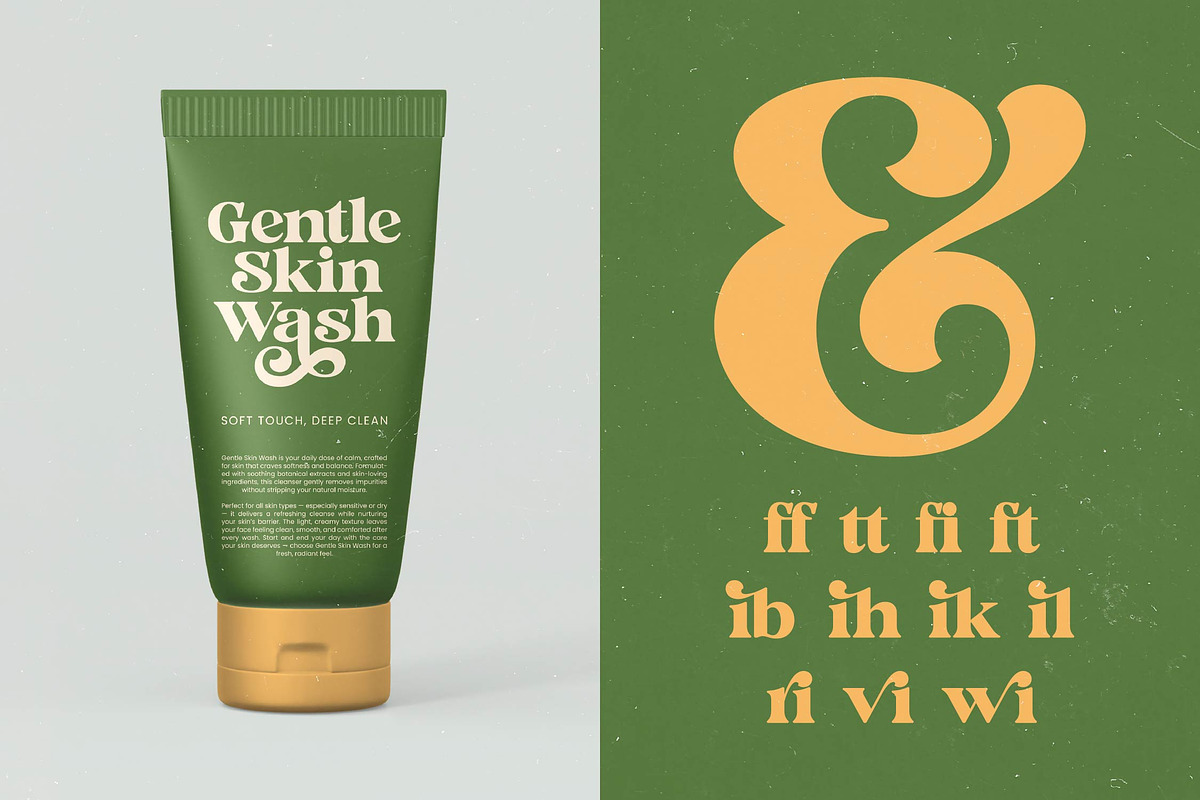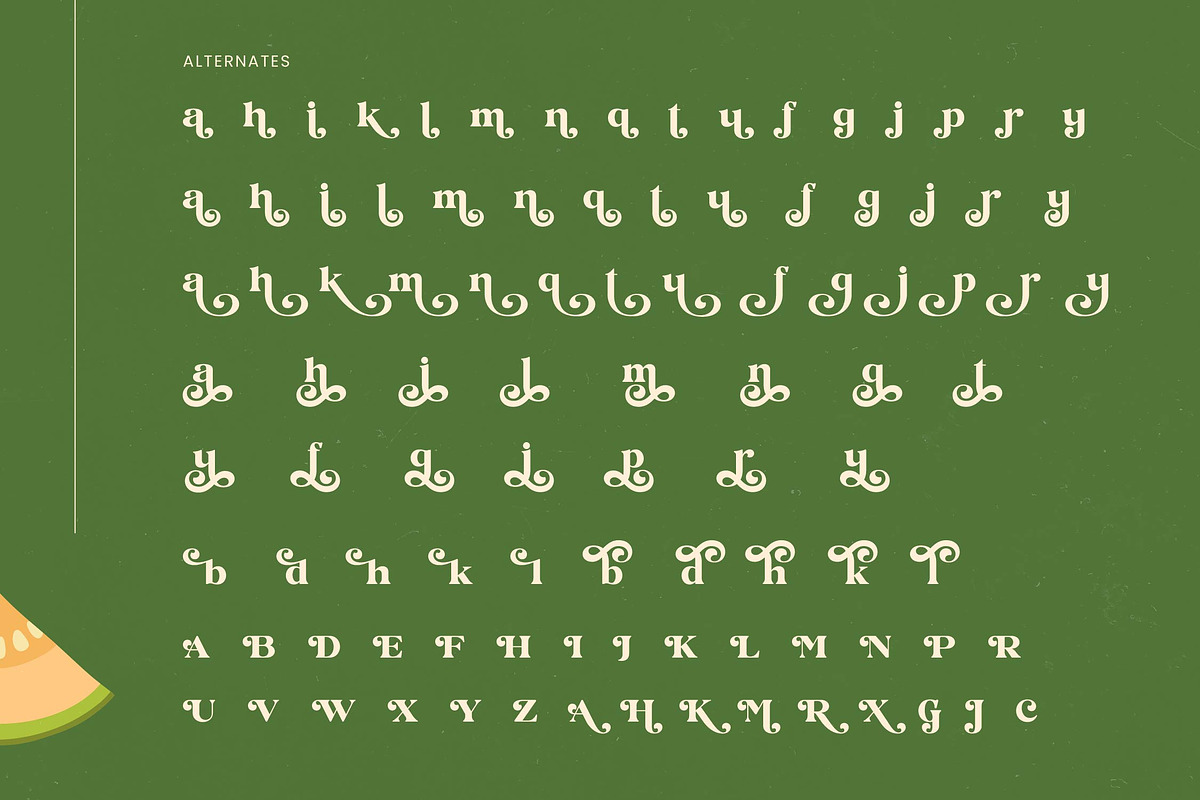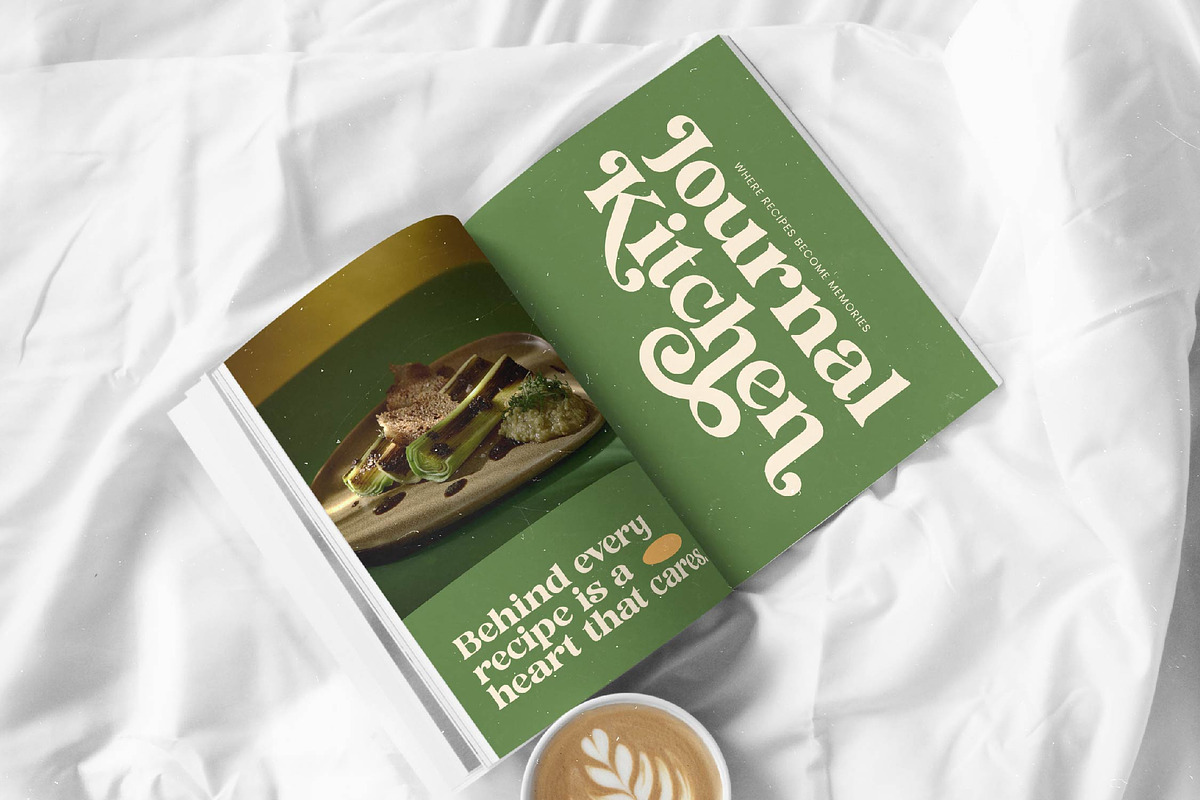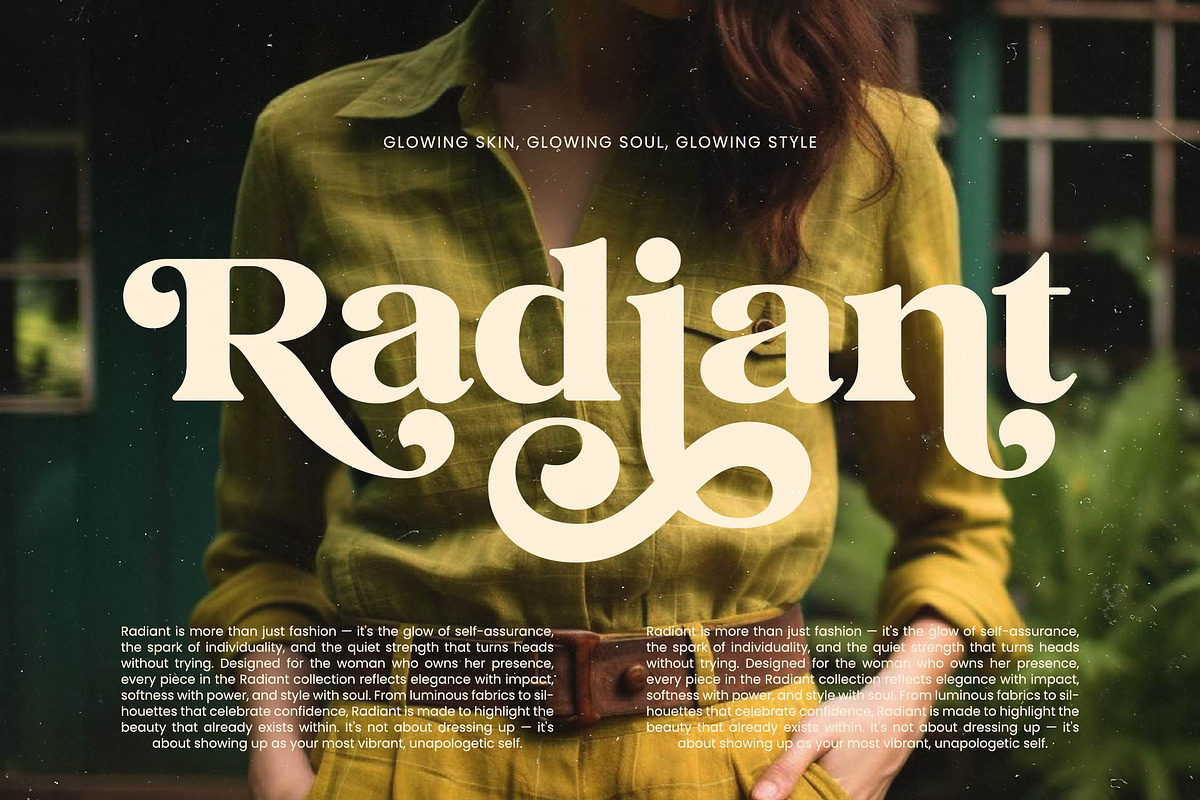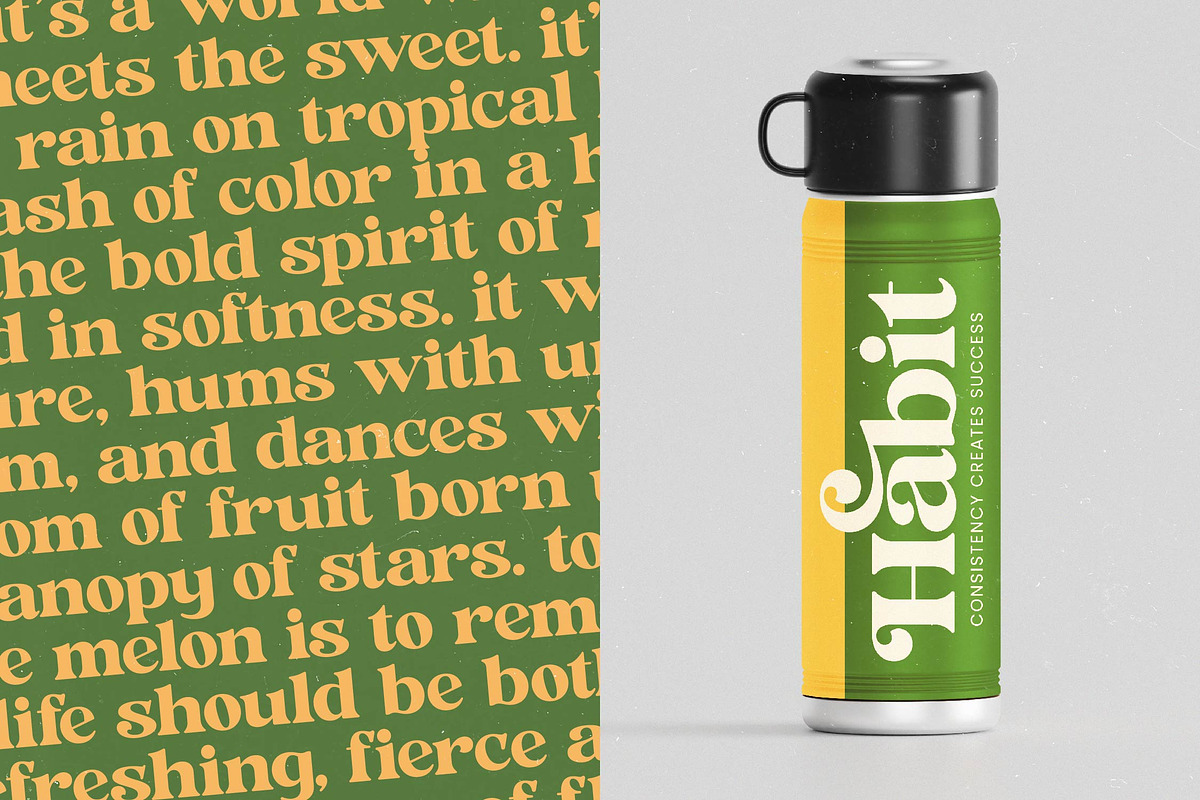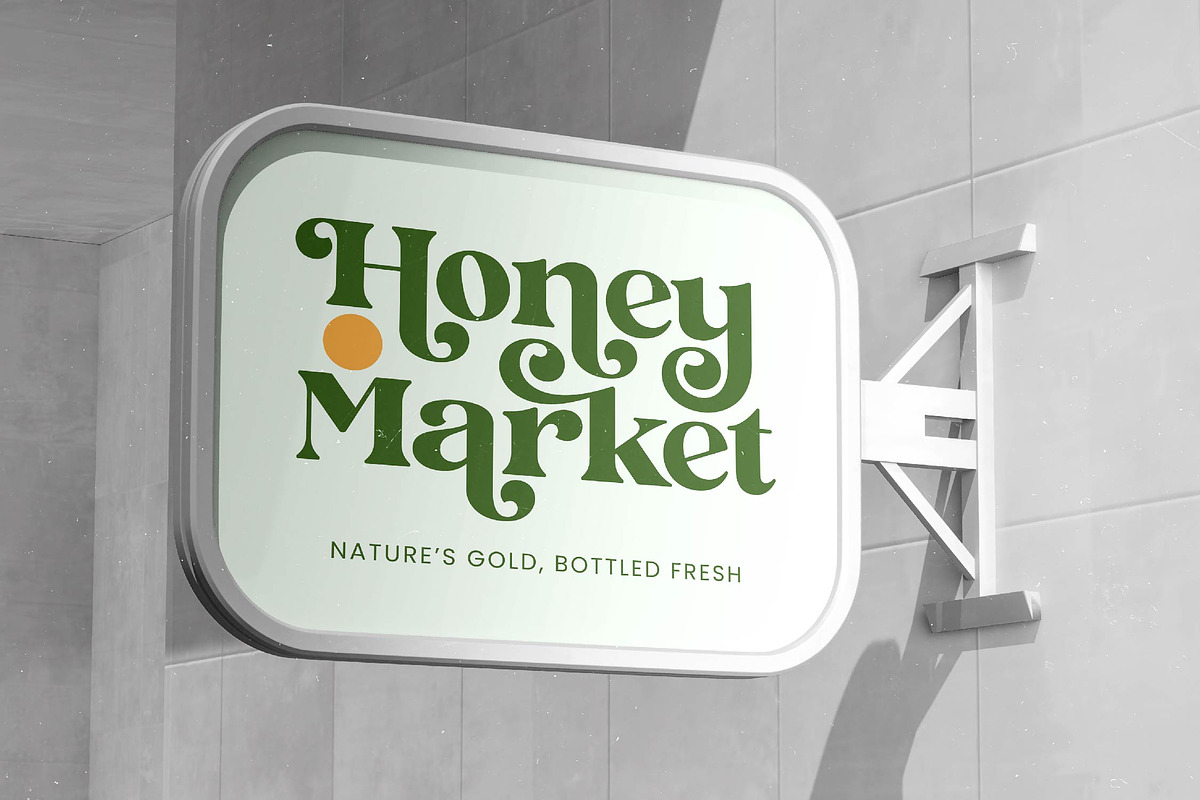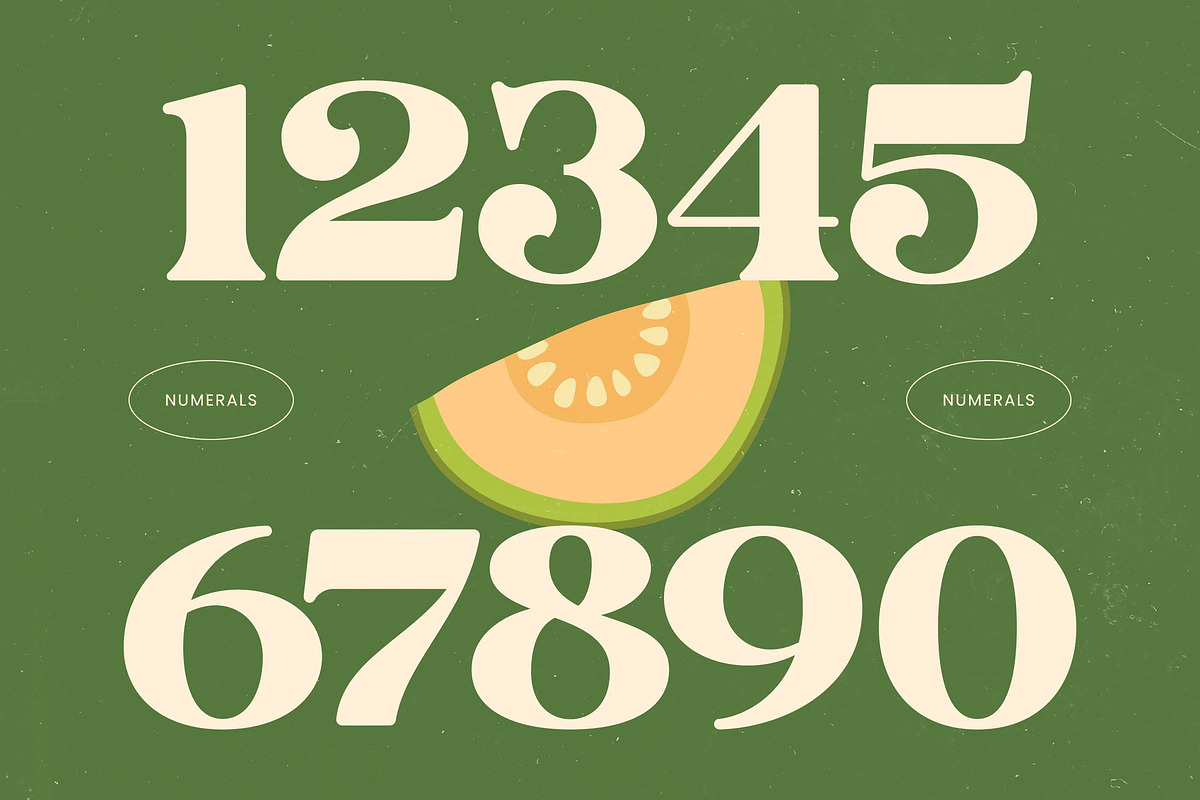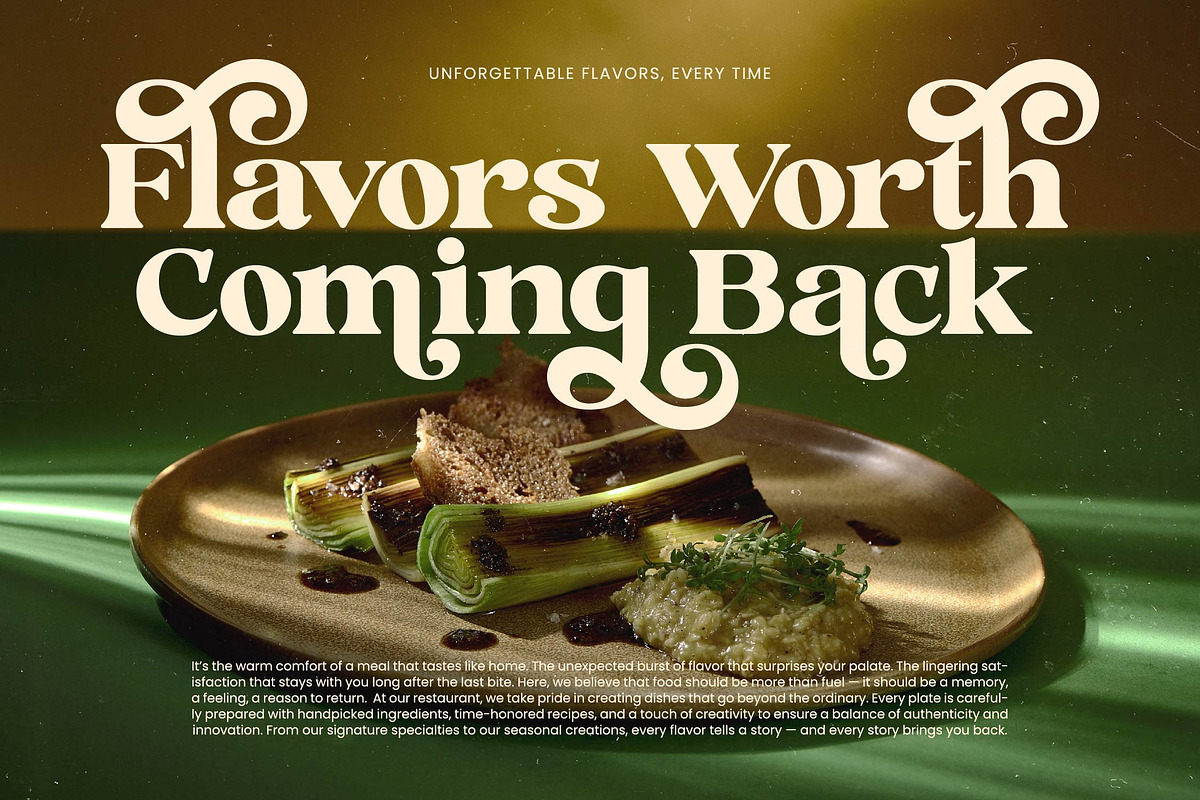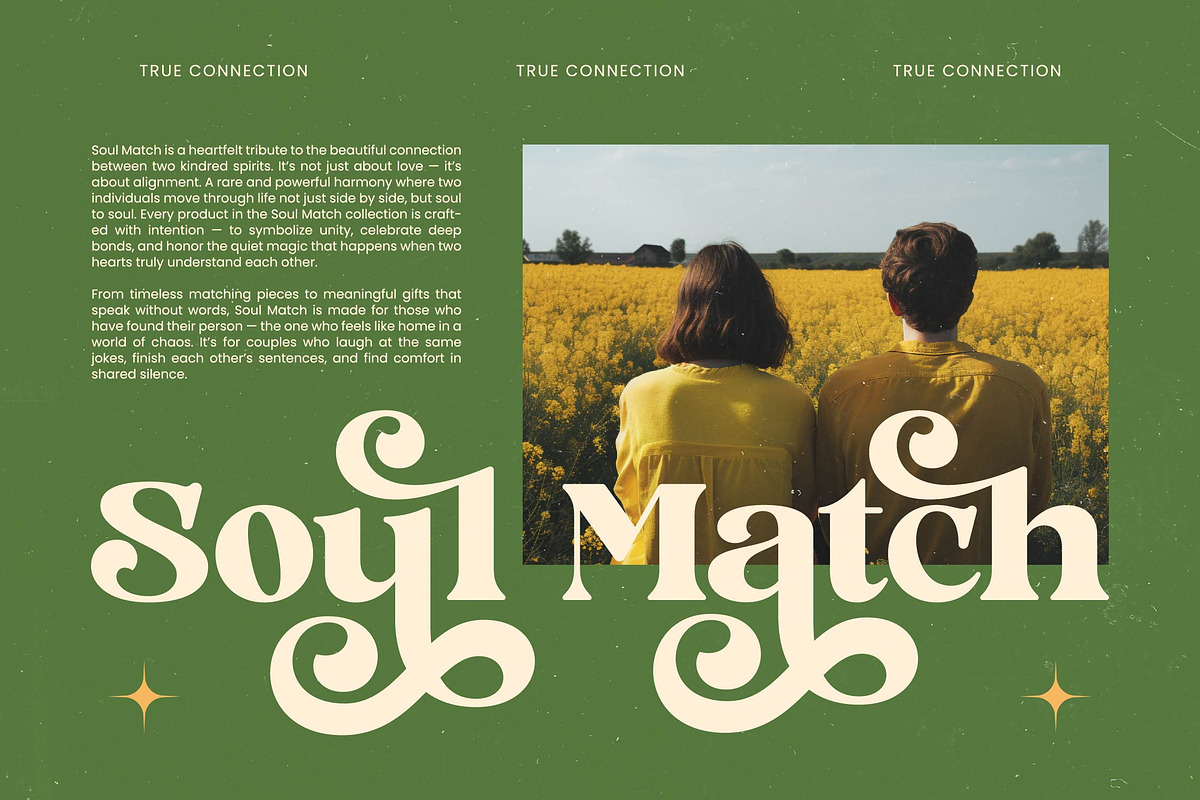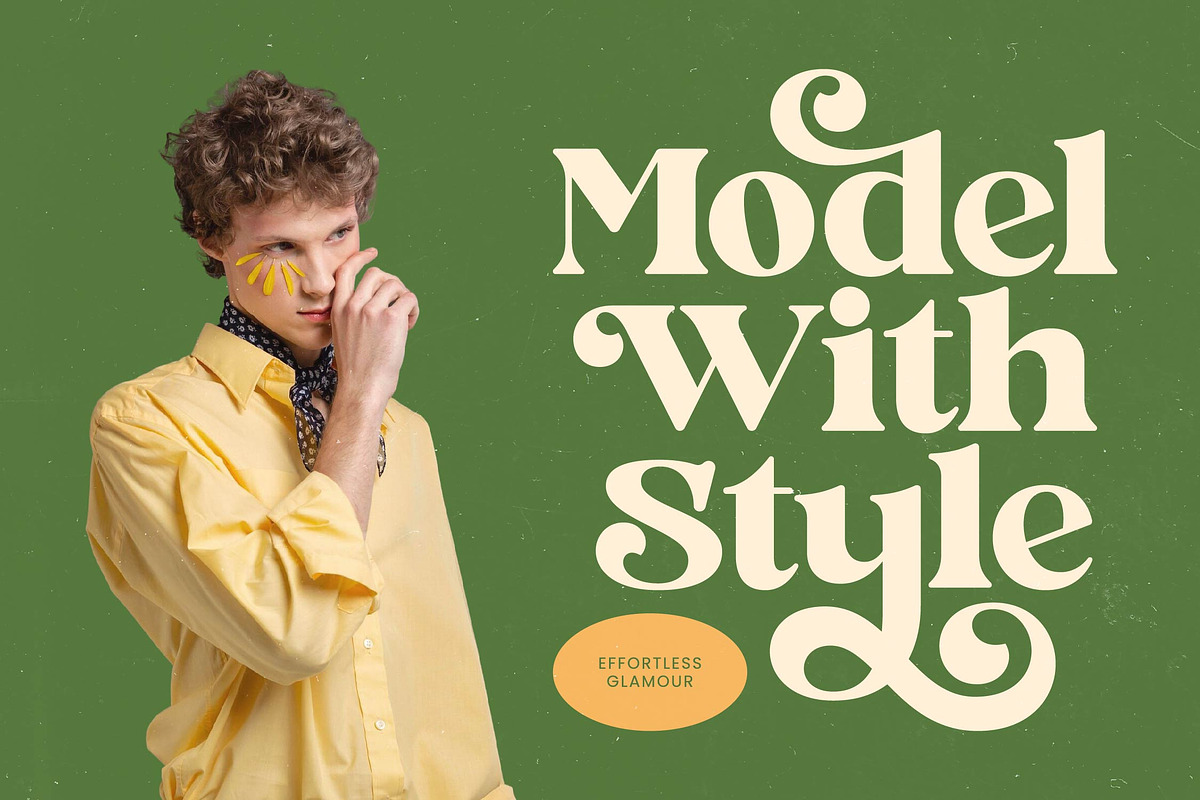
Jungle Melon Groovy Display Serif
Jungle Melon is a vibrant celebration of organic curves and nostalgic charm, designed to bring a soulful energy to every creative project. This font isn't just a typeface; it's a bold statement of character and timeless playfulness.
Drawing inspiration from the lush, winding aesthetics of nature and the groovy spirit of the 1970s, this typeface balances thick strokes with delicate swashes. The design reflects a fusion of botanical beauty and vintage pop culture, creating a visual rhythm that feels both grounded and whimsical.
With its modern serif display qualities, this font offers a unique luxury typography experience that captures attention instantly. It functions as a high-contrast serif that doesn't compromise on legibility, providing a powerful editorial font choice for designers seeking maximum branding impact.
Perfect for the current modern serif trend, this typeface taps into the demand for editorial display fonts that feel handcrafted and bespoke. It embodies the move towards character-driven typography, allowing brands to express a sense of warmth and authenticity that standard fonts often lack.
Whether you are working on a high-end logo design or comprehensive branding identity, this font scales beautifully across all media. It is an ideal fit for editorial layouts, vibrant packaging concepts, romantic wedding stationery, and cutting-edge fashion lookbooks.
This comprehensive package includes 11 unique ligatures and 98 stylistic alternates to help you customize your text with decorative swashes. Furthermore, it offers full multilingual support with a wide range of international characters, ensuring your message reaches a global audience without compromise.
- Ligature 11 Alternate 98